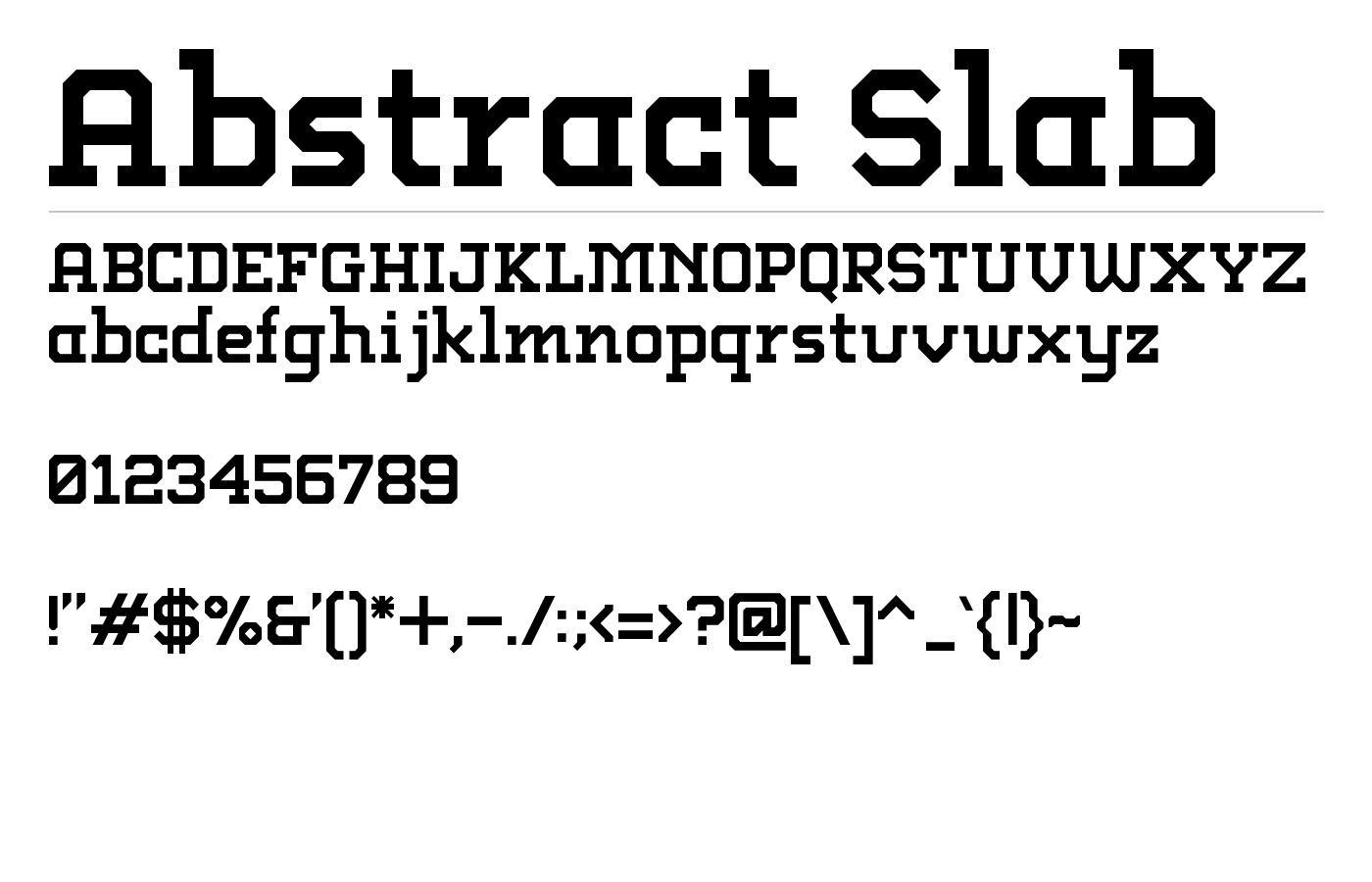
Abstract Slab is a bold, geometric slab serif font with a strong, blocky presence and consistent stroke weight, giving it a sturdy and industrial feel. Its distinctive angular terminals and squared shapes make it ideal for headlines, logos, and branding that require a modern yet robust aesthetic. This font works especially well in designs that want to convey strength and clarity with a touch of contemporary edge.
Abstract Slab Font
About Abstract Slab Font
| Font family | Abstract Slab Font |
| Category | Slab-serif |
| Designer | nirmalbiswas |